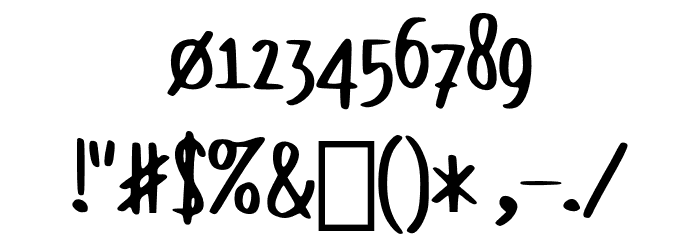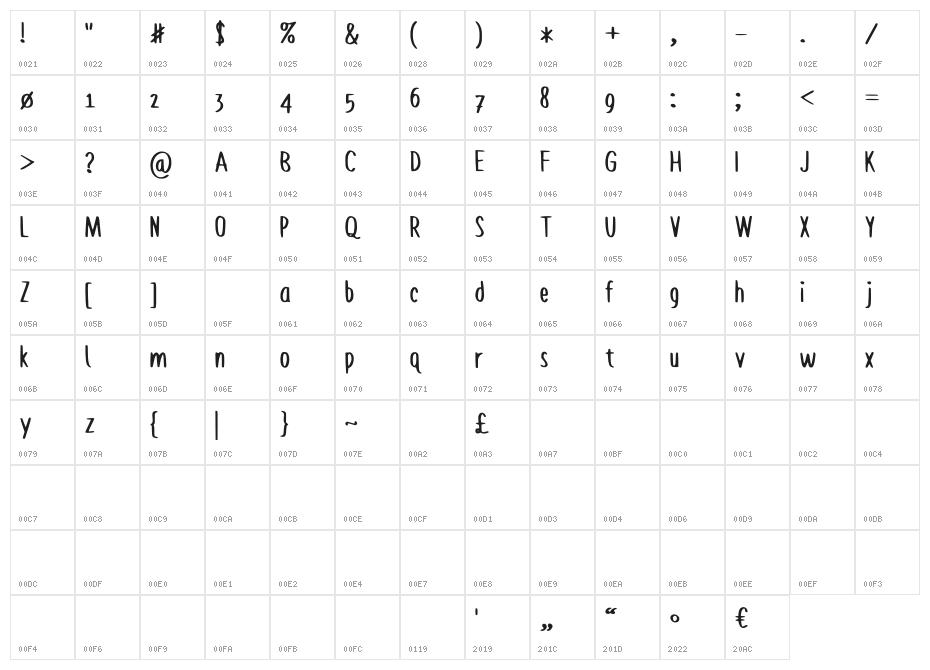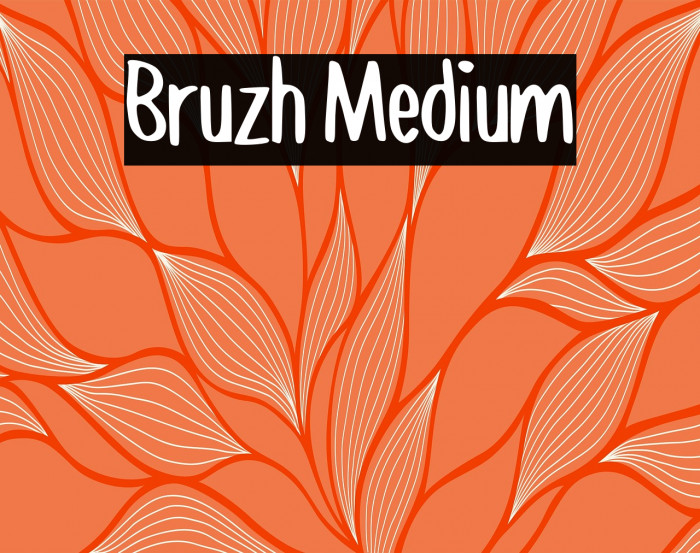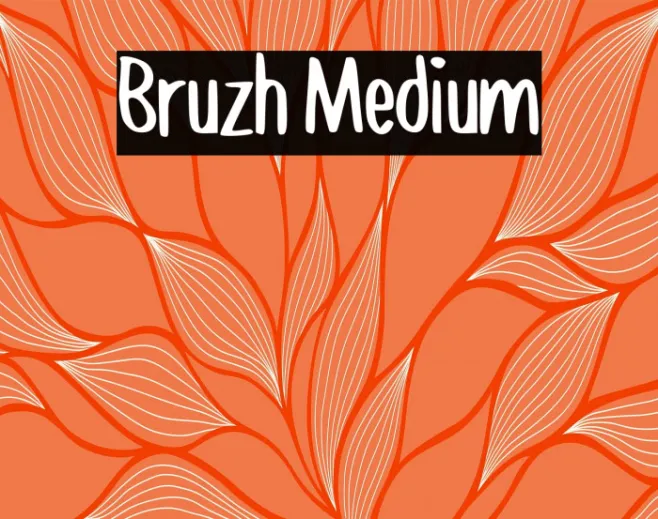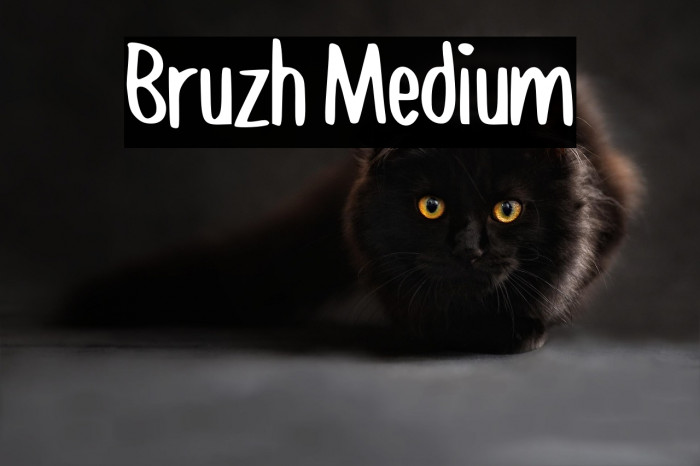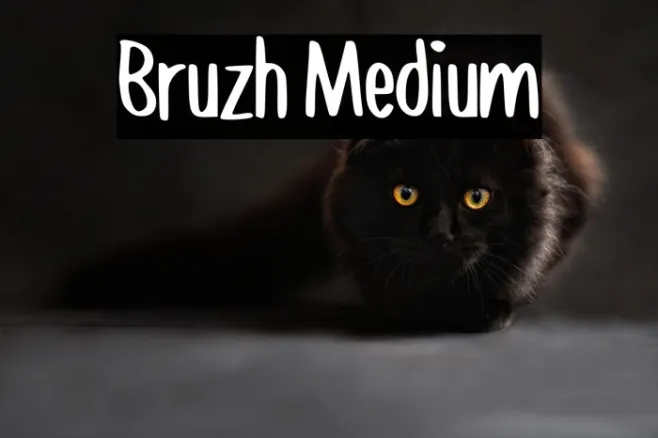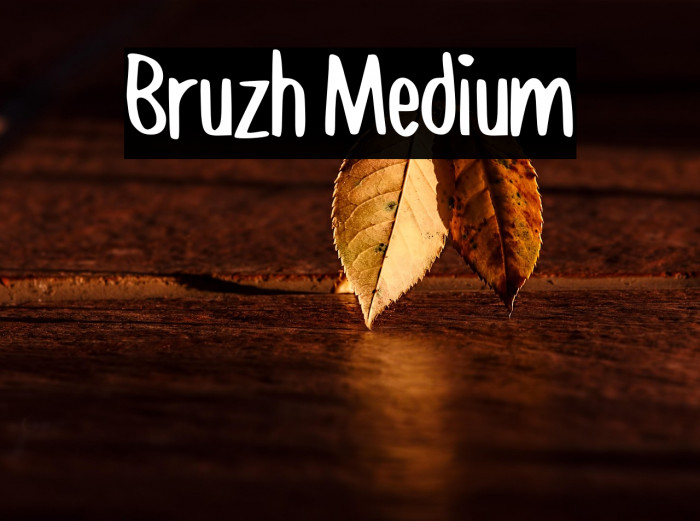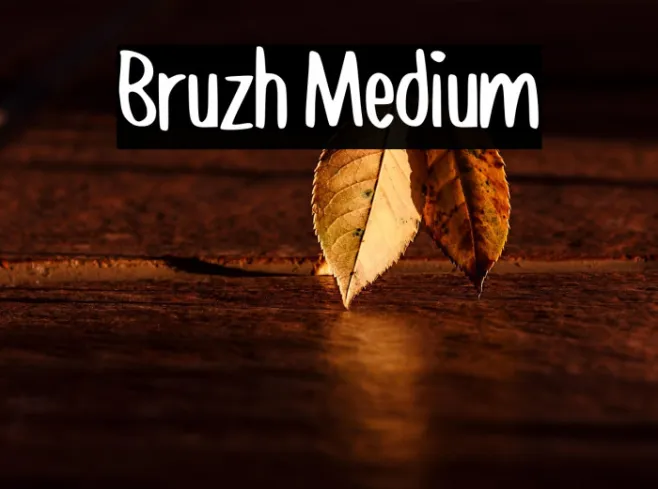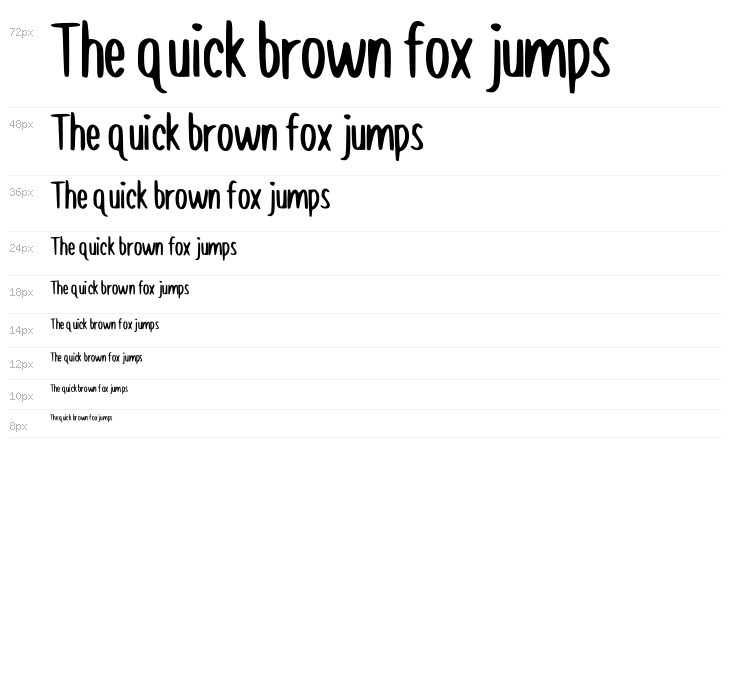
Bruzh Medium Font
Bruzh Medium Description
This font features a playful and casual handwritten style, characterized by its rounded and slightly irregular letterforms. The strokes are consistent in width, giving it a uniform appearance while maintaining a friendly and approachable vibe. The uppercase letters are bold and prominent, while the lowercase letters have a more relaxed and informal feel. The numerals and special characters complement the overall style, making it versatile for various design needs. Its unique charm makes it suitable for projects that require a personal touch.
| Proposed Projects | Ideal for greeting cards, children's books, casual branding, and social media graphics. |